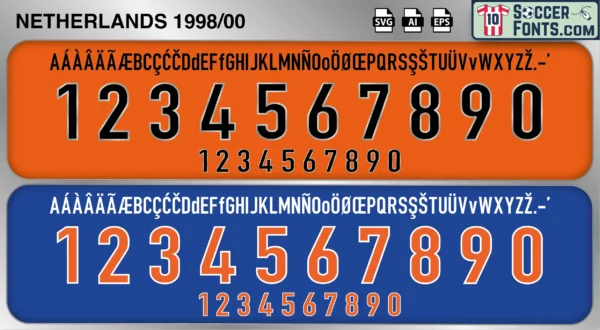
Netherlands 1998-00 Font
The Netherlands 1998-00 font is an editable soccer jersey lettering design in vector format inspired by the Netherlands kit style used during the 1998-00 football seasons. This football font artwork is prepared for football shirt recreations, custom jersey projects, football kit mockups and sports graphic design workflows.
The 1998-00 period is remembered as one of the strongest eras in modern Dutch football history. Following an impressive campaign at the 1998 FIFA World Cup in France, the Netherlands established itself as one of the most entertaining and talented national teams in international football. The squad featured legendary players such as Dennis Bergkamp, Patrick Kluivert, Edgar Davids, Clarence Seedorf, Frank de Boer, Ronald de Boer and Marc Overmars. At the 1998 World Cup, the Dutch reached the semi-finals and produced some of the tournament’s most memorable football, including Bergkamp’s iconic winning goal against Argentina. The combination of technical excellence and attacking football reinforced the Netherlands’ reputation as one of the game’s most influential football nations.
The Netherlands 1998-00 font became closely associated with the road from the 1998 World Cup to UEFA EURO 2000, a tournament co-hosted by the Netherlands and Belgium. Expectations were extremely high as the Dutch entered the competition on home soil with a generation widely regarded as one of the nation’s finest. Netherlands shirts from this era remain highly collectible because of their connection with Bergkamp, Kluivert and one of the most exciting teams of the late 1990s. The Netherlands 1998-00 font reflects a period defined by attacking football, technical brilliance and the enduring influence of Dutch football culture on the international game.